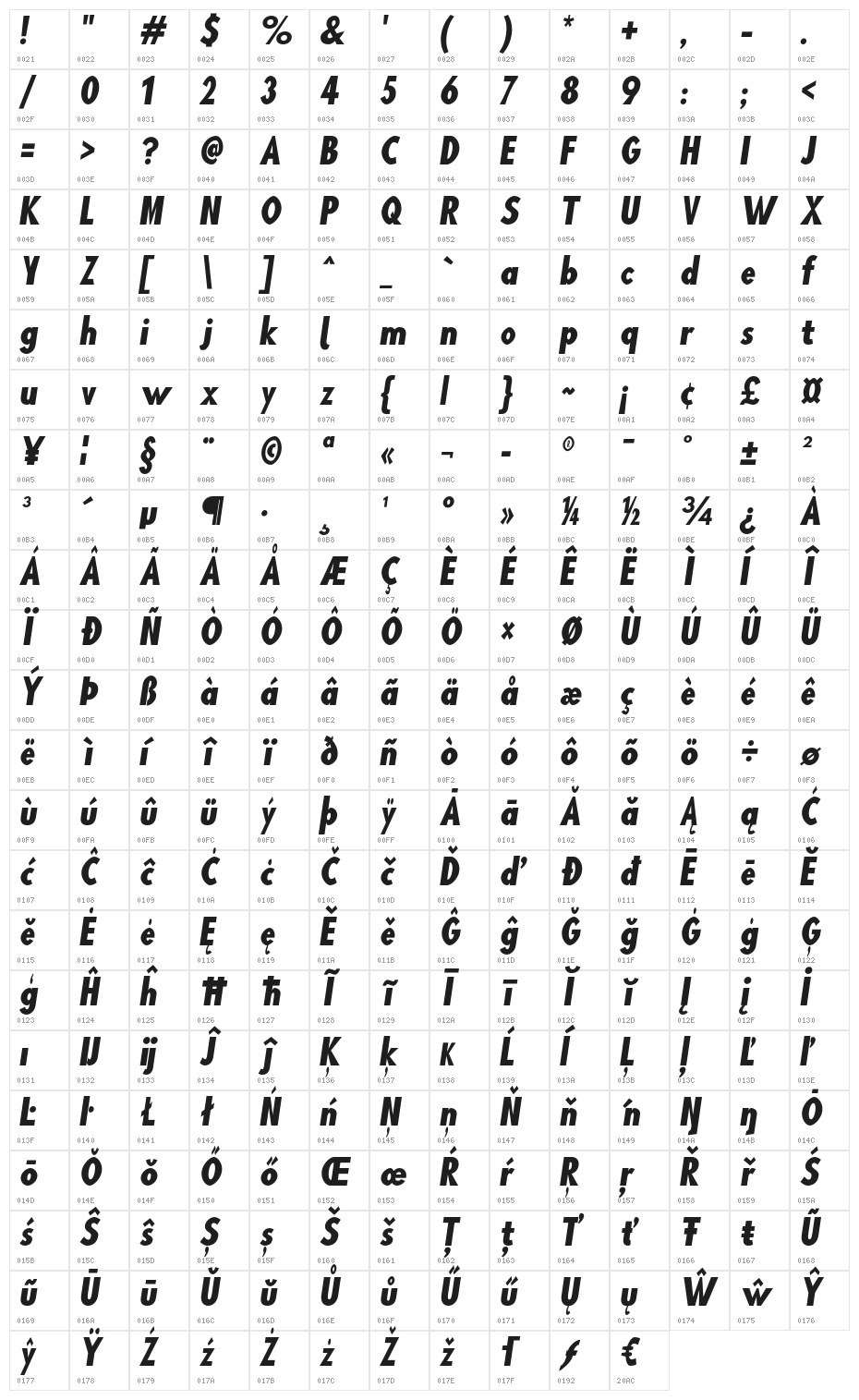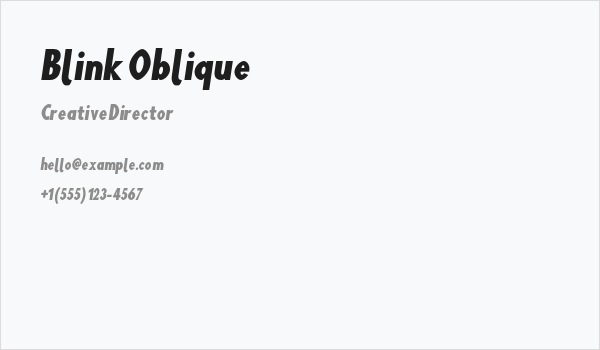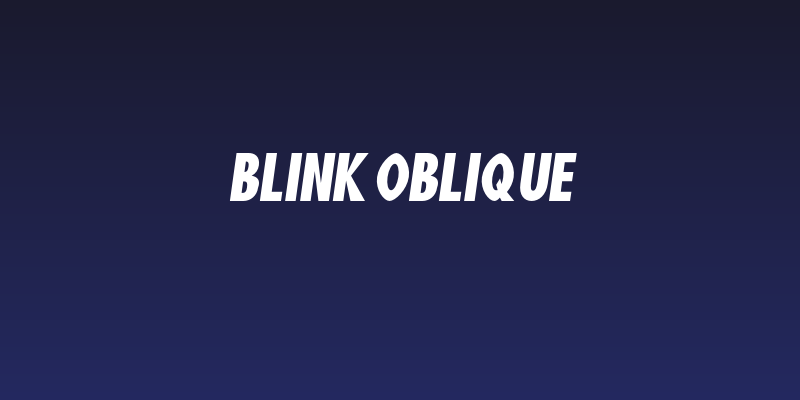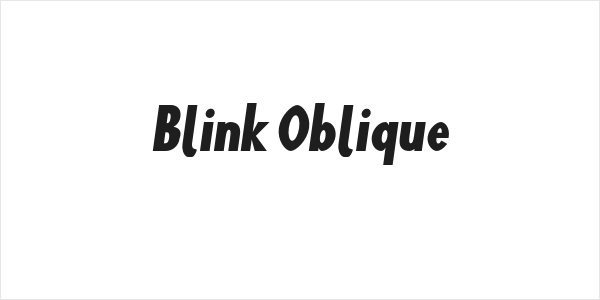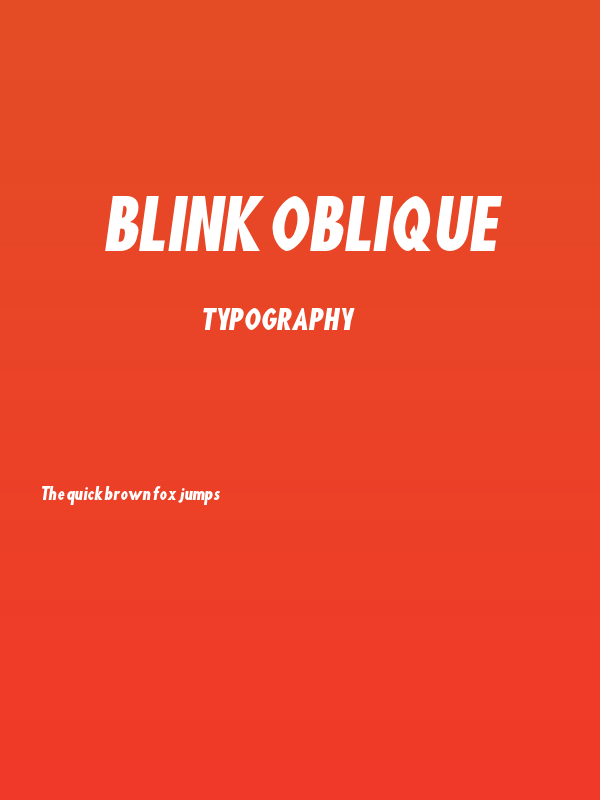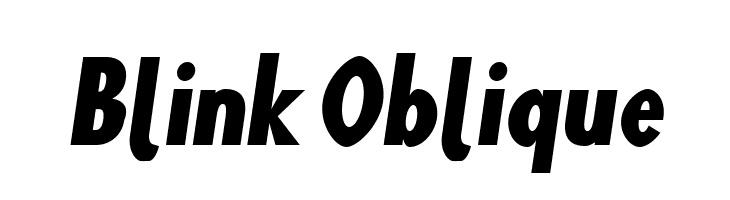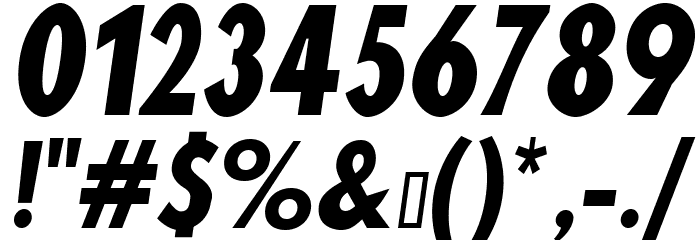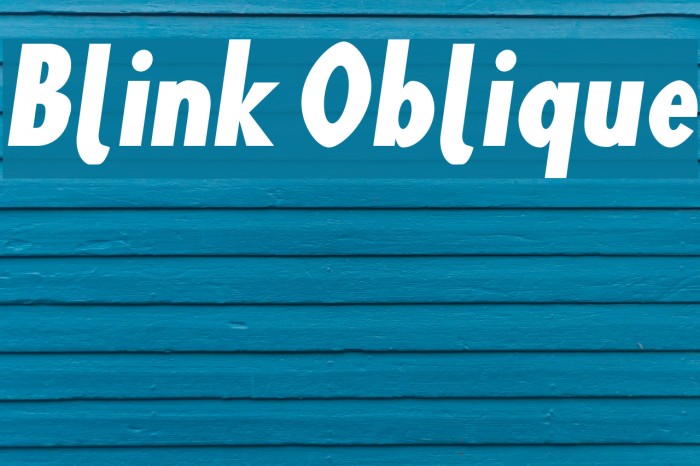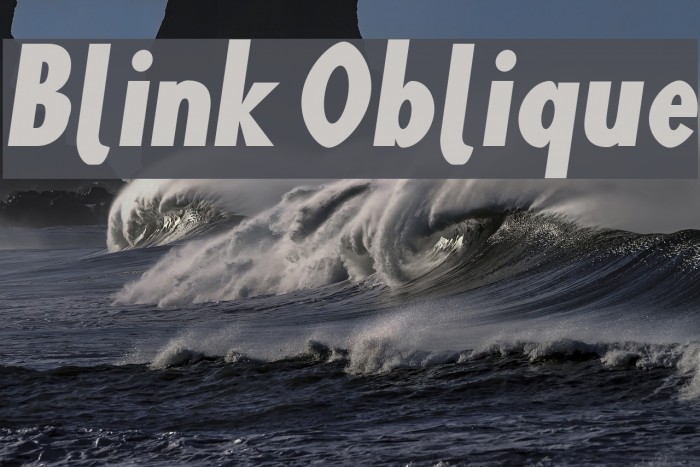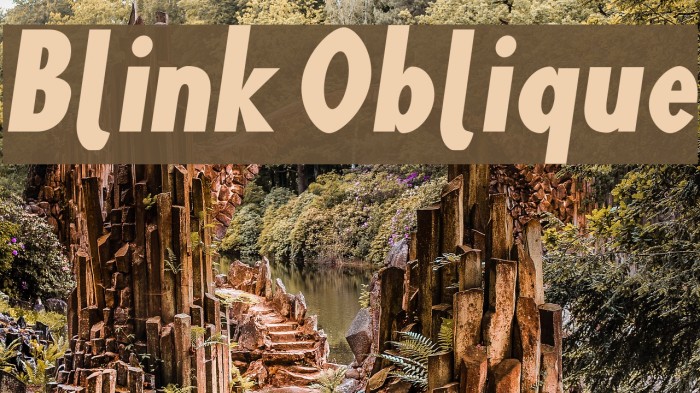
Blink Oblique Font
Blink Oblique Description
This font features a bold and dynamic style with a pronounced oblique slant, giving it a sense of motion and energy. The characters are thick and robust, providing a strong visual impact. The uppercase and lowercase letters maintain consistent proportions, ensuring readability while adding a touch of flair. The numbers are equally bold, matching the overall aesthetic of the font. Special characters are included, maintaining the same bold and slanted style, making this font versatile for various design needs.
| Proposed Projects | Ideal for sports branding, dynamic posters, eye-catching headlines, and modern advertising campaigns. |